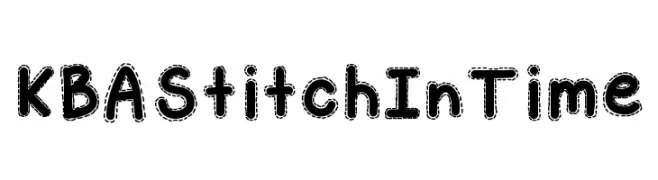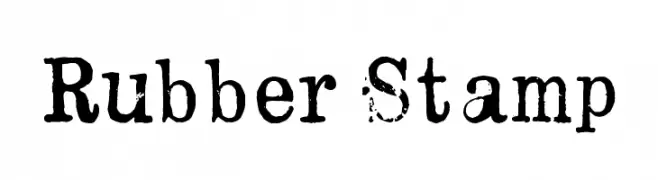
A sketchy, hand-drawn font with textured, overlapping strokes.
A bold, brush-stroke style font with a rugged, handcrafted appearance.
A playful, stitched outline font with a handcrafted, whimsical style.
A bold, distressed font with a textured, vintage appearance.
A bold, vintage serif font with a distressed, handcrafted look.
A hand-drawn, textured font with a dynamic and artistic style.
A rugged, hand-drawn font with textured strokes and an organic feel.
A bold, distressed typewriter-style font with a vintage, handcrafted look.